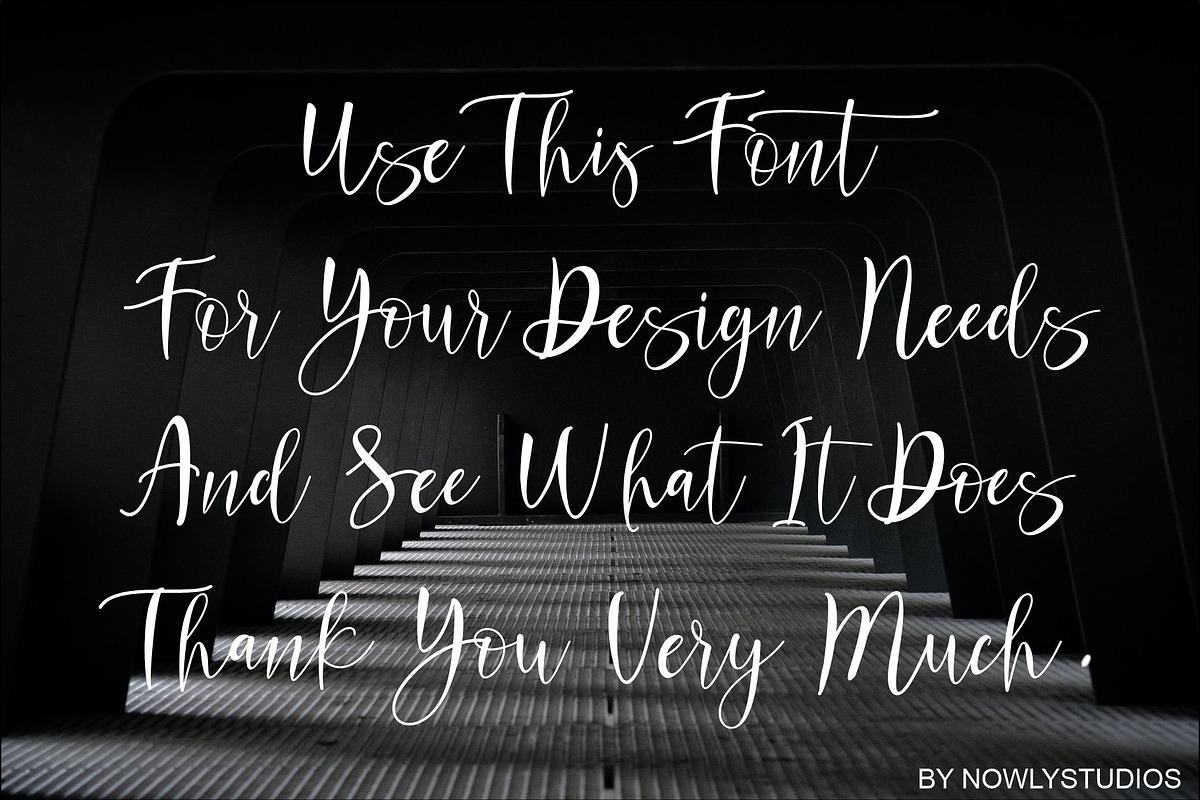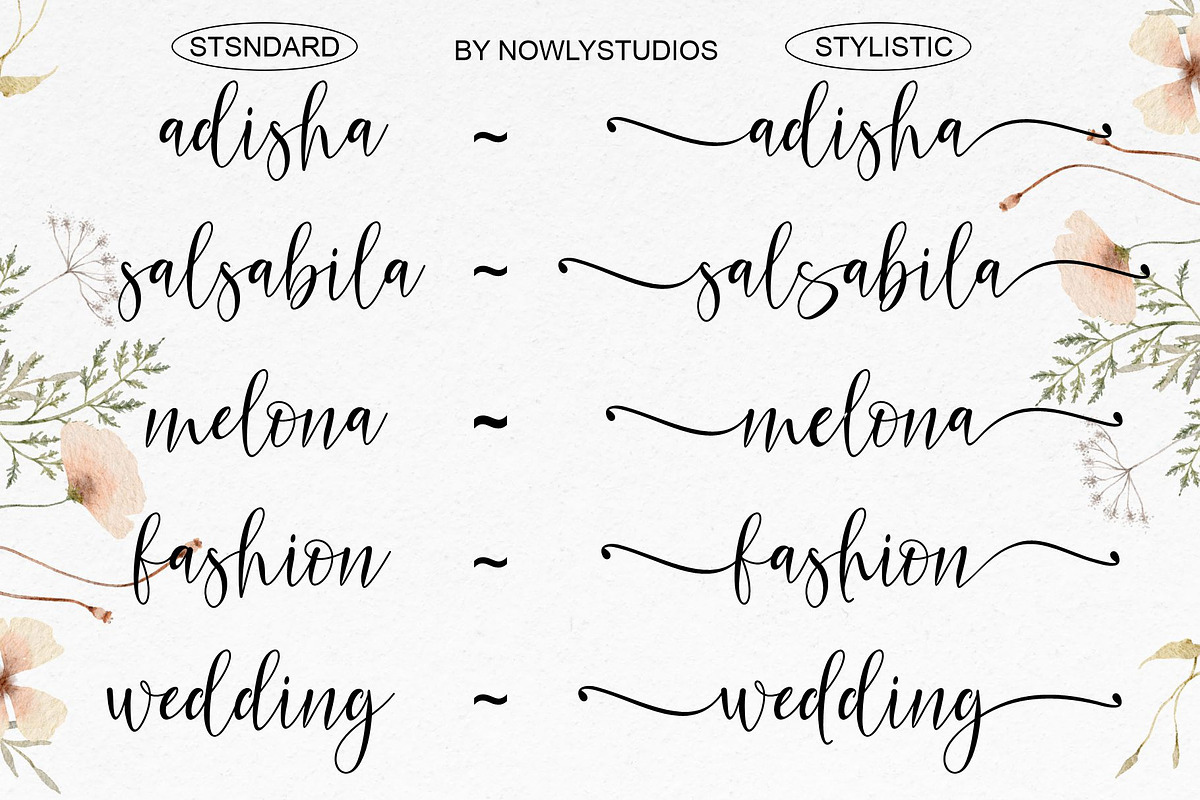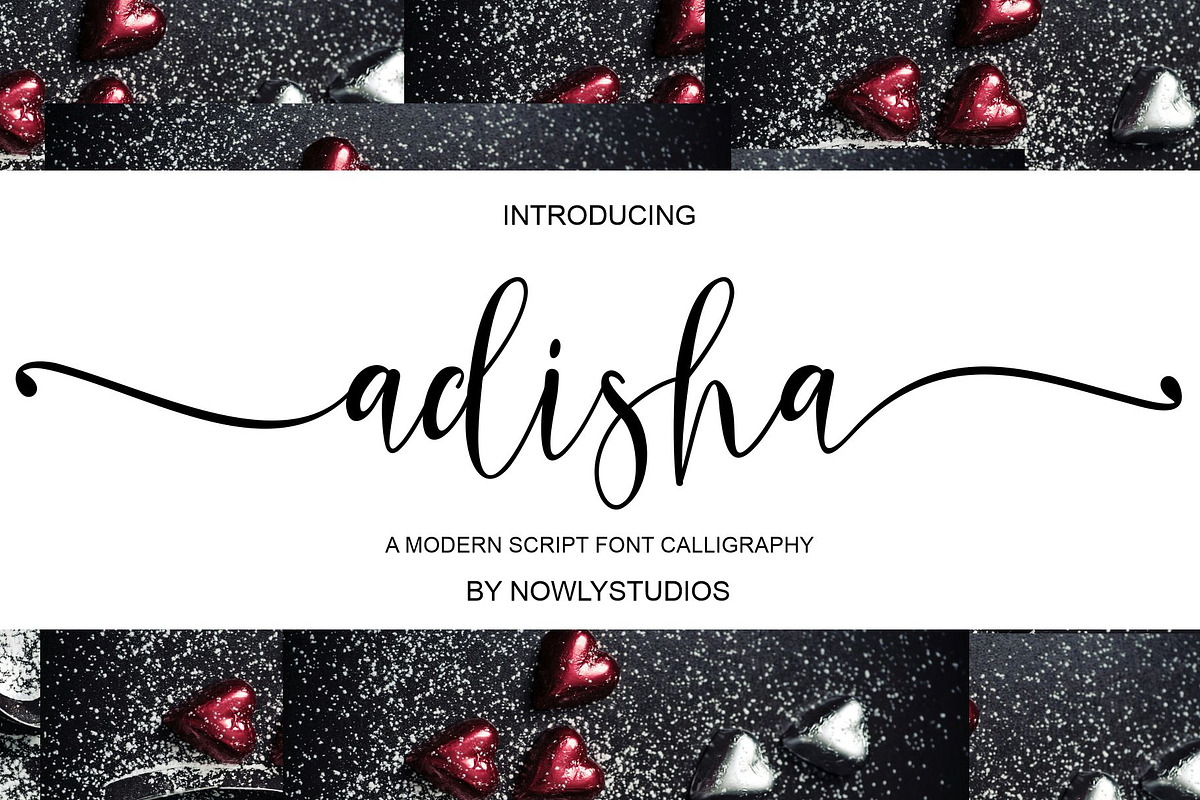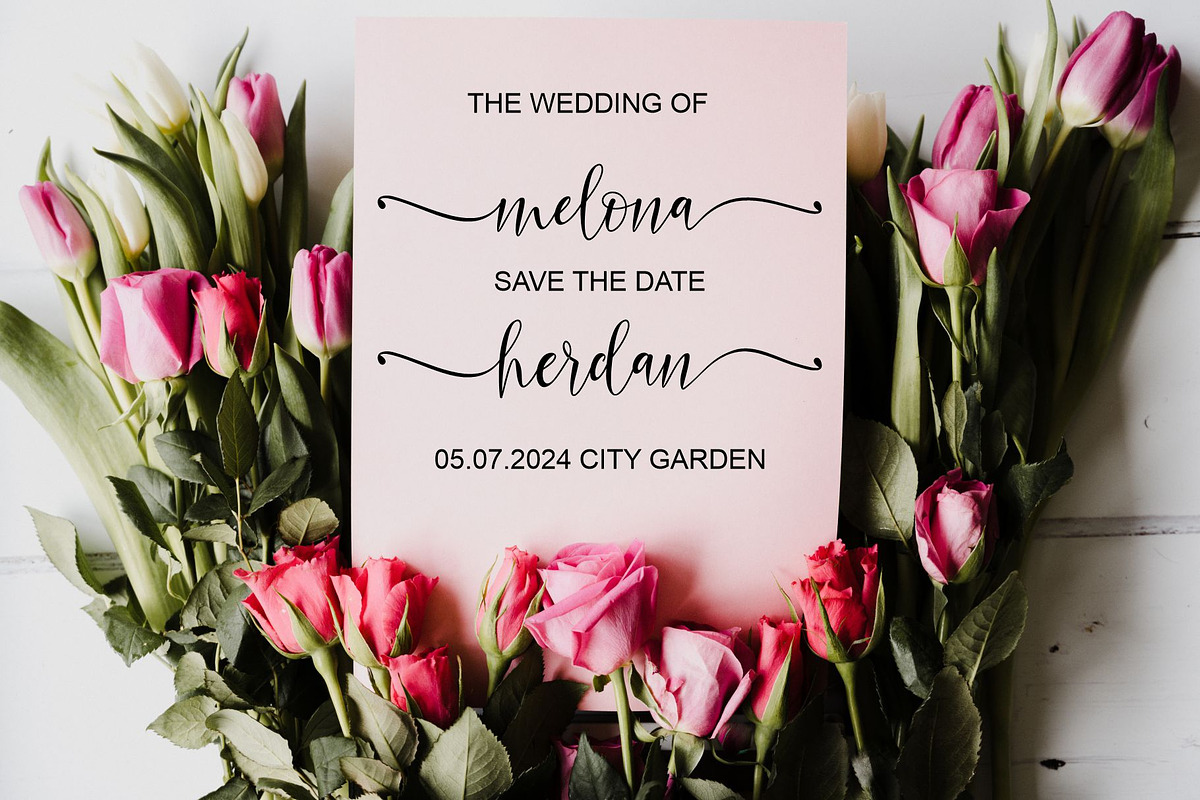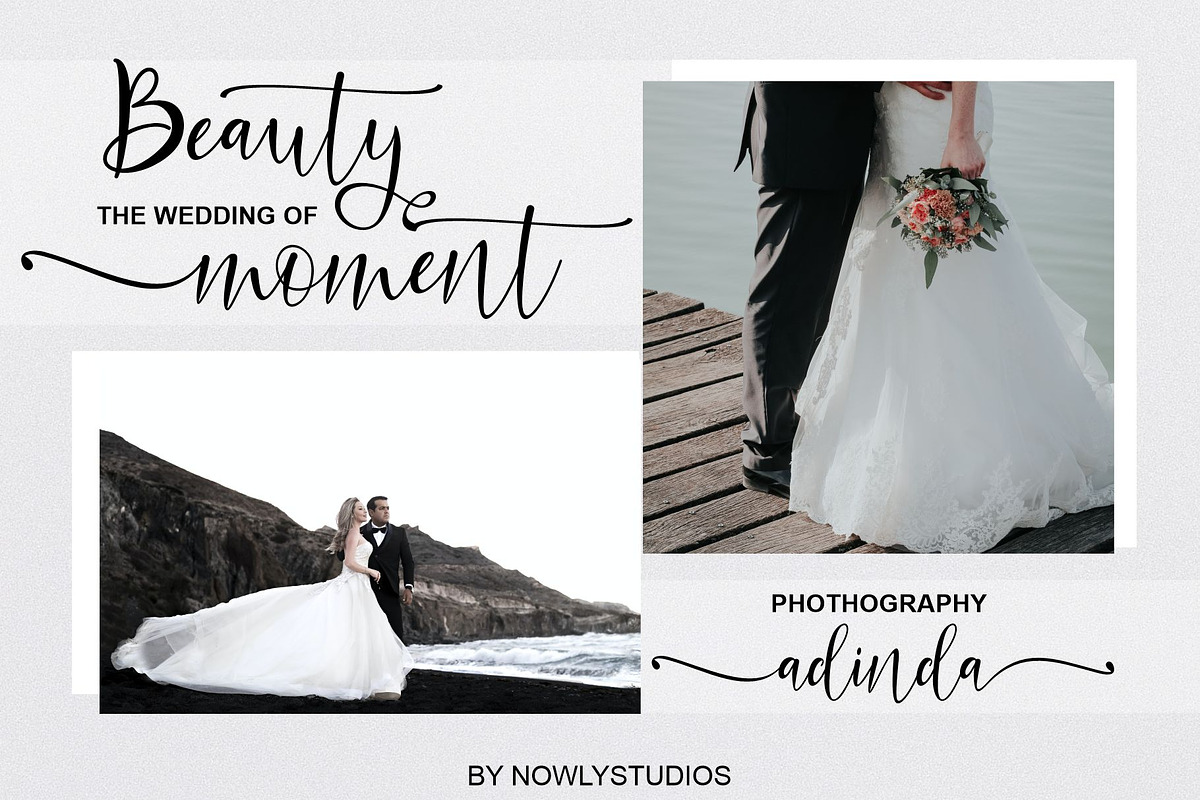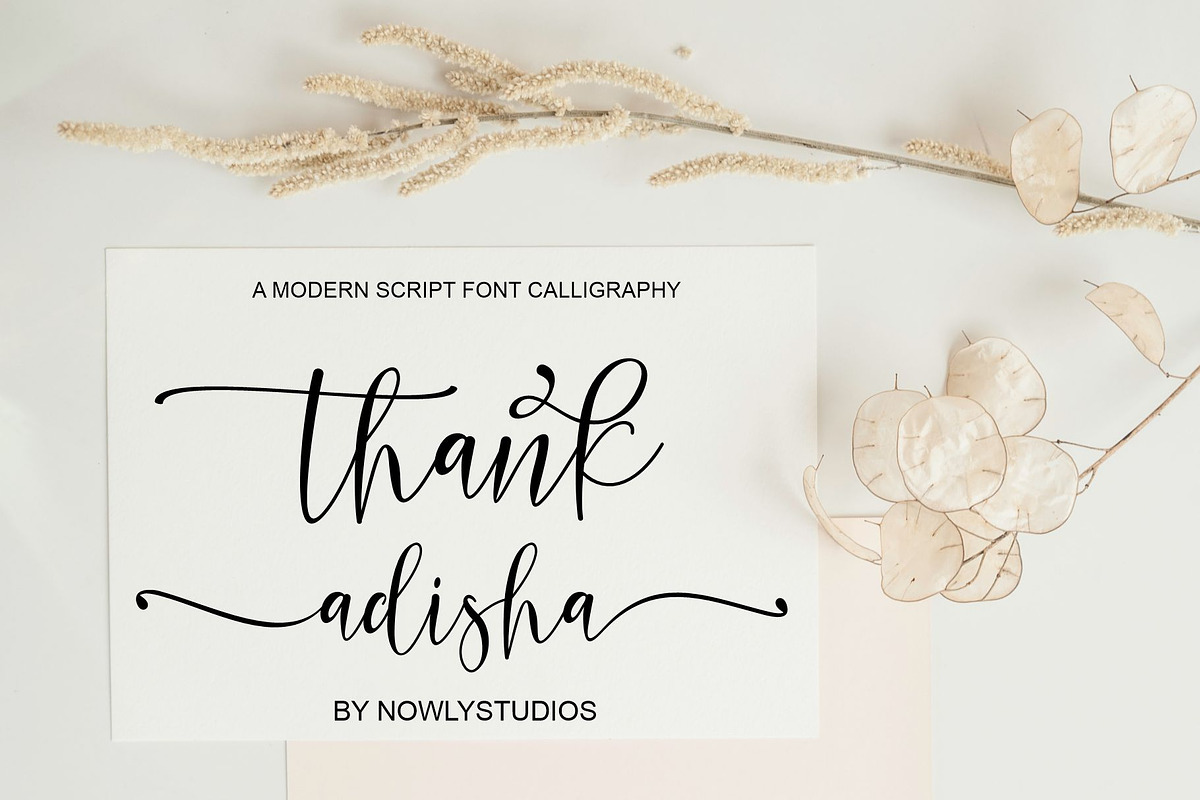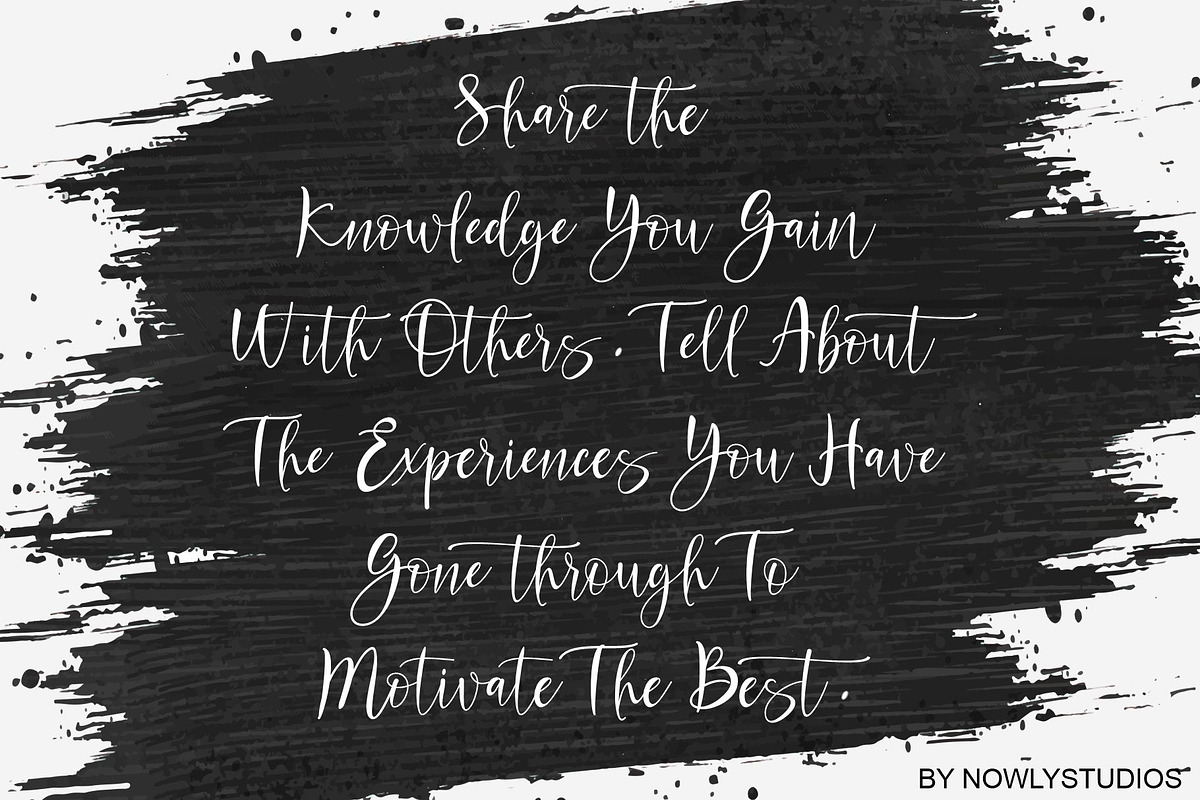
Adisha Script
Adisha Script is a unique blend of classic and modern fonts, with imperfect style with ups and downs, like dance letters, smooth, clean, and simple. Perfect for weddings, events, invitations, escort cards, table numbers, header menus, displays, logos, slider blogs, custom addresses, stamps, packaging, greeting cards, etc.
Adisha Script includes alternate glyphs and beautiful swirls in a font including stylistic sets, Ligatures, etc. The Open Type features can be accessed by using Open Type savvy programs such as Adobe Illustrator CS, Adobe Indesign & CorelDraw X6-X7, and Microsoft Word. And this Font has given PUA unicode (specially coded fonts). so that all the alternate characters can easily be accessed in full by a craftsman or designer.